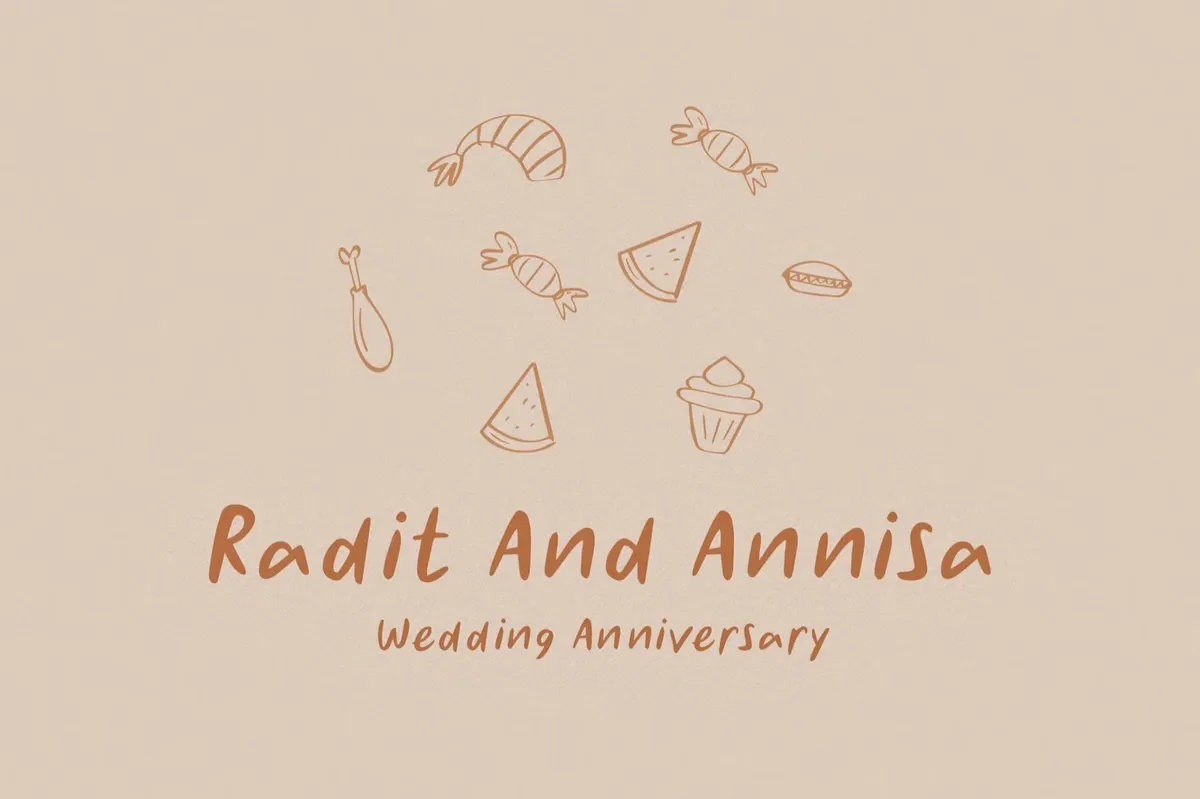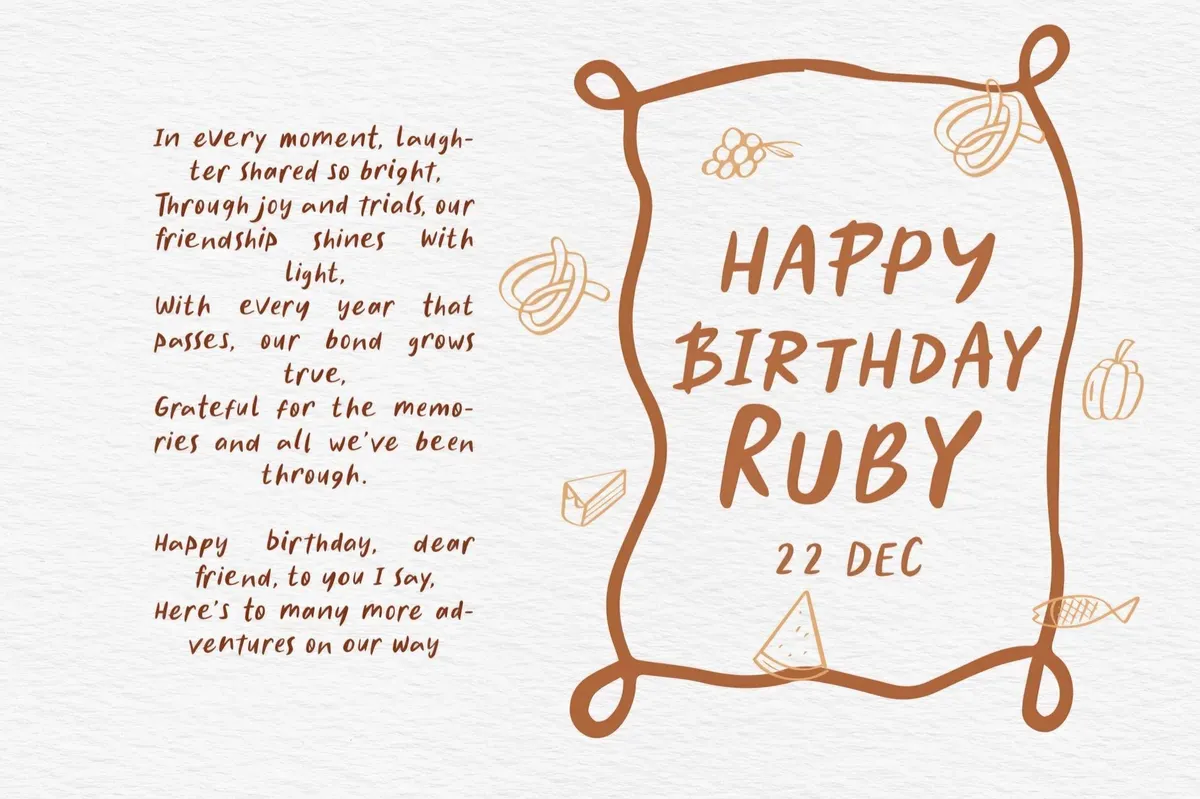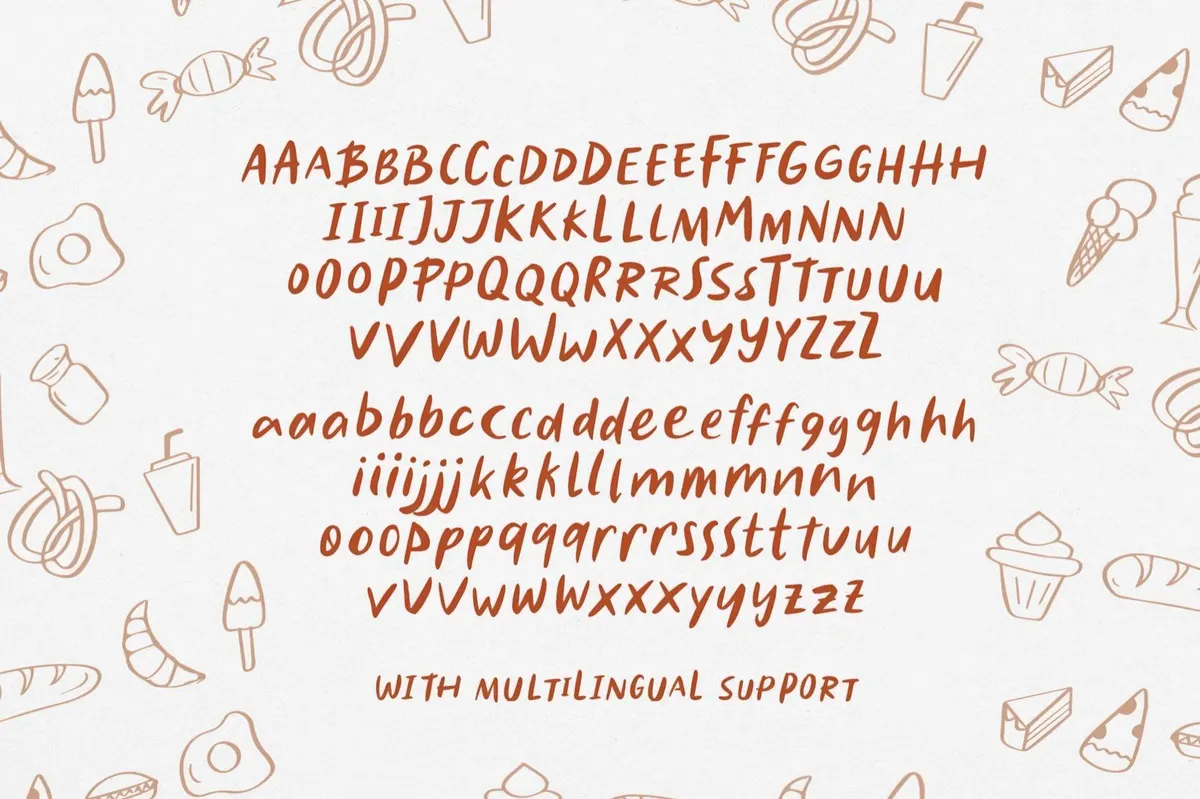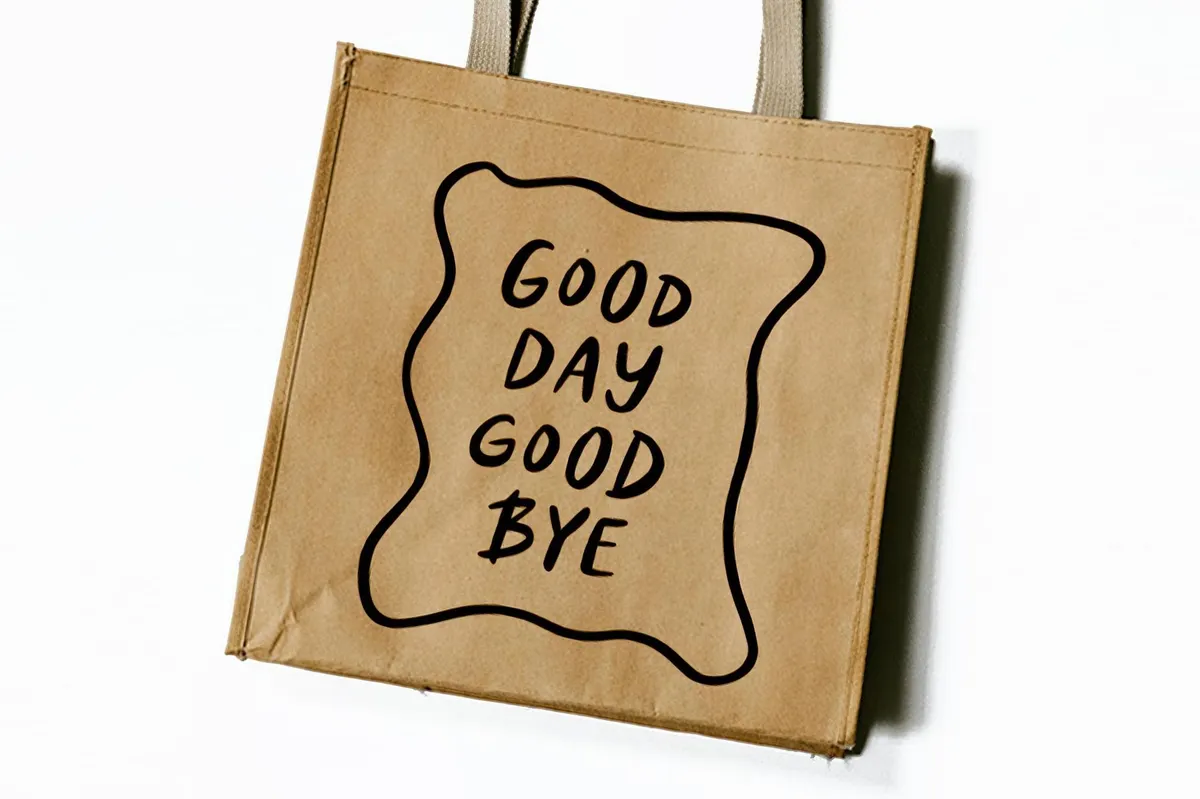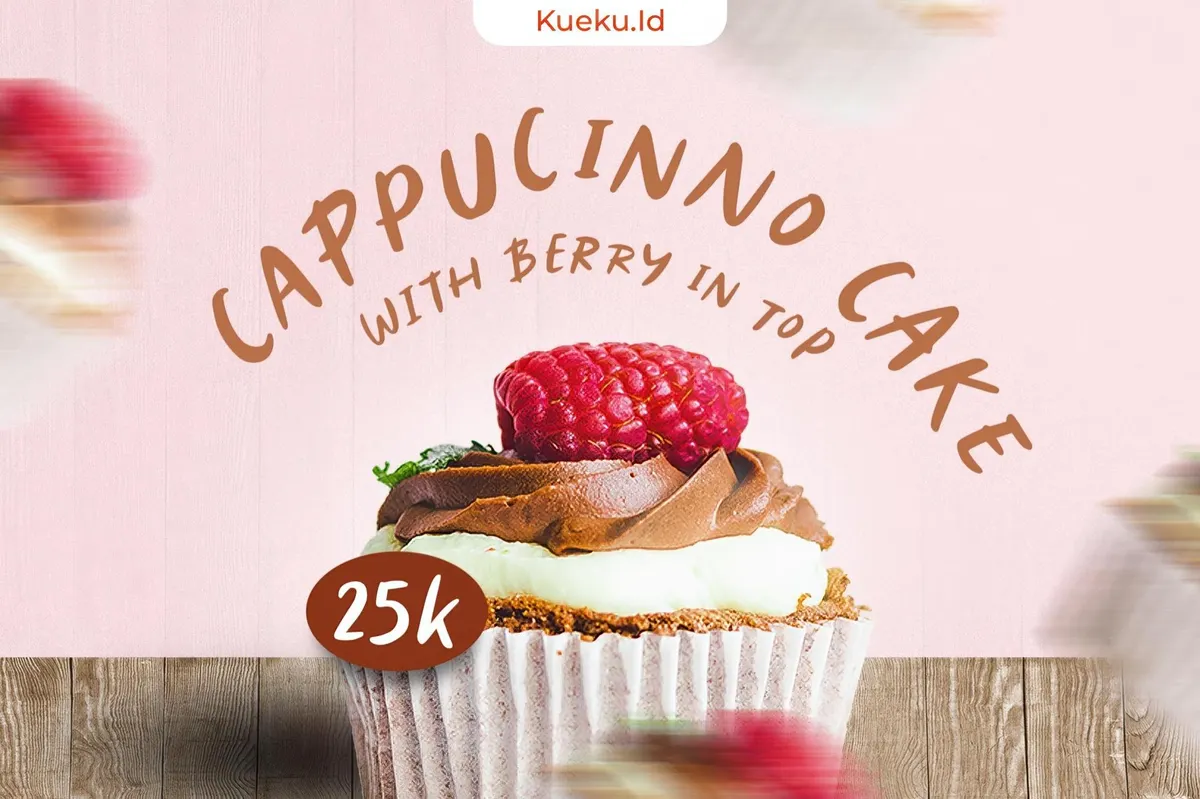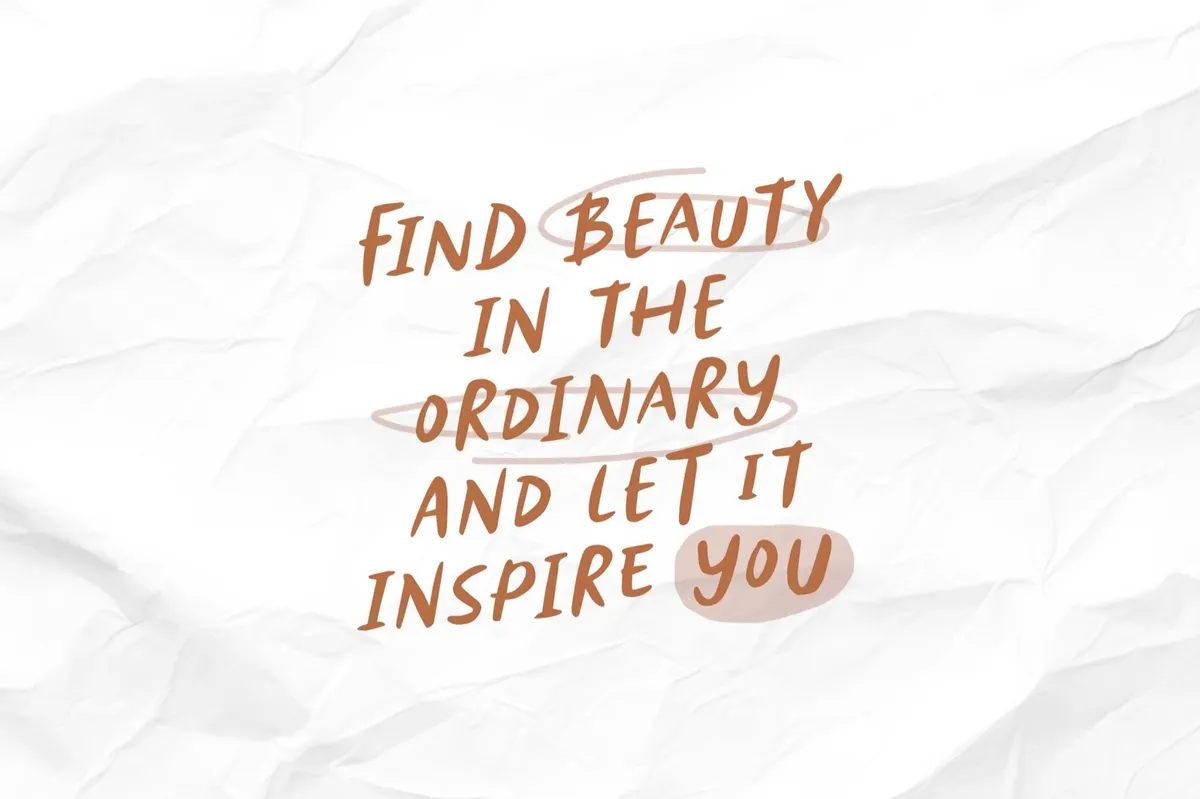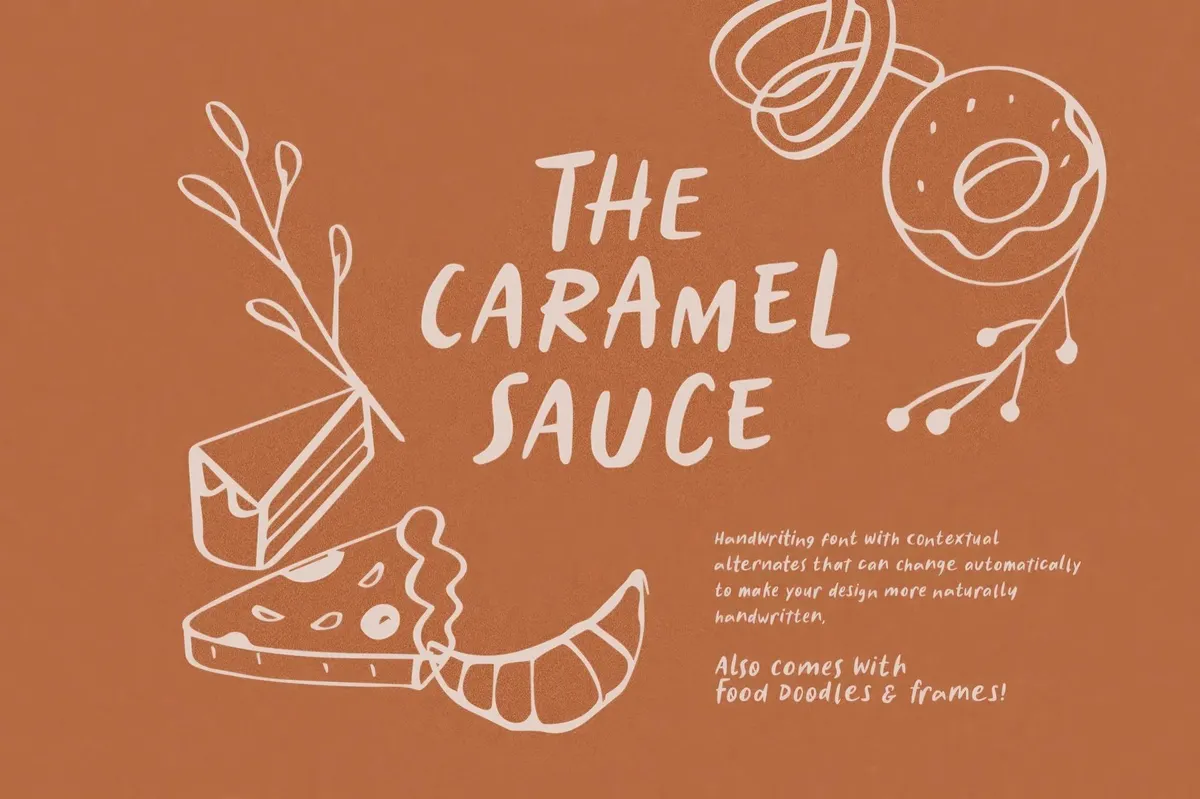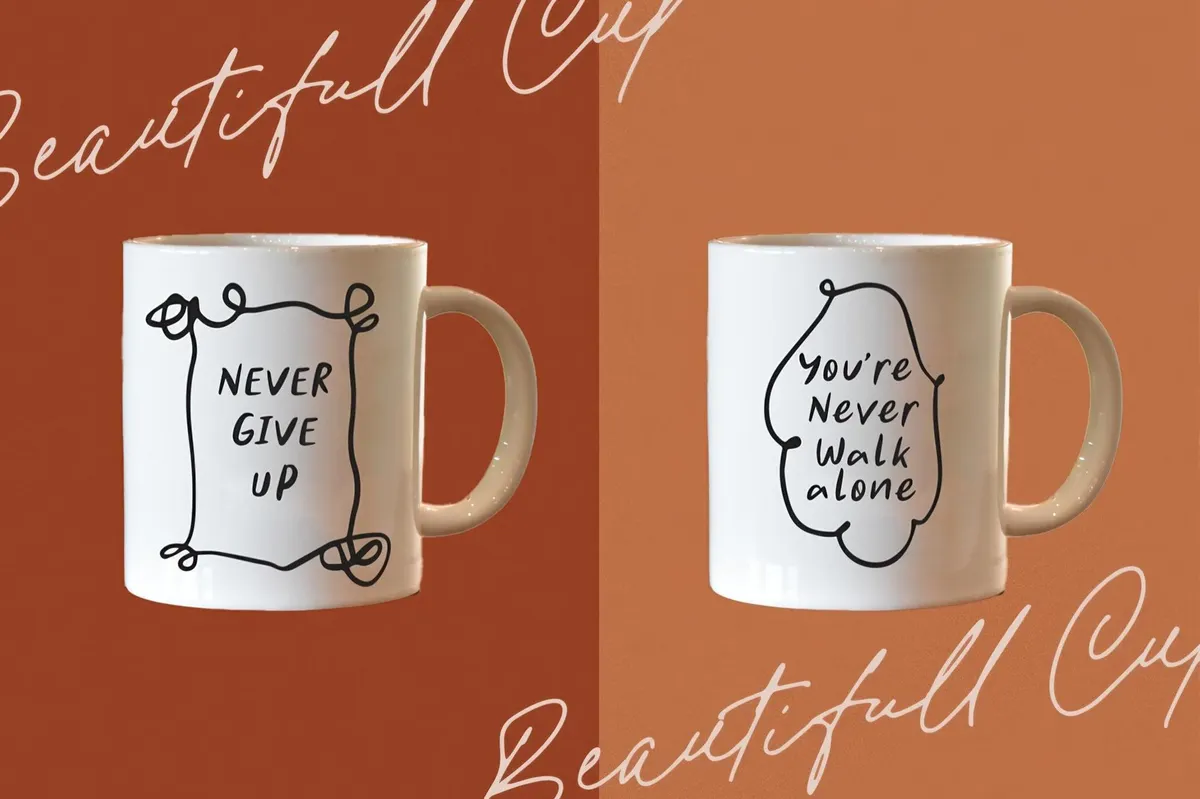
Caramel Sauce Font + Doodles
Caramel Sauce is a playful handwritten font with smooth curves, natural flow, and contextual alternates that adjust automatically. There uppercases, lowercases, multilingual support, symbols, and numerals. The set also includes a charming collection of food-inspired doodles and decorative frames — the font’s letterforms pair beautifully with those.
The font mimics the organic feel of handwriting, turning into a go-to pick whenever you want to go with handcrafted, homemade charm. E.g., café menus, bakery packaging, branding, or cozy social media graphics.s, making it an inviting choice for everything from invitations to editorial layouts.